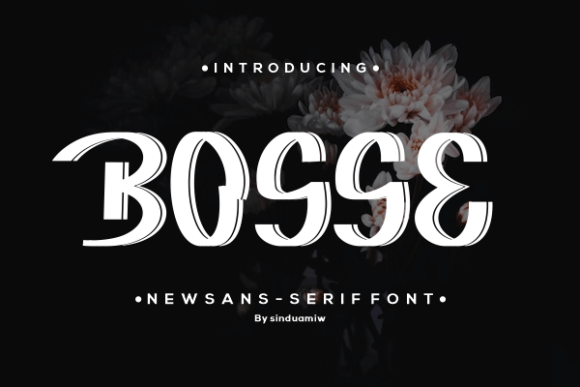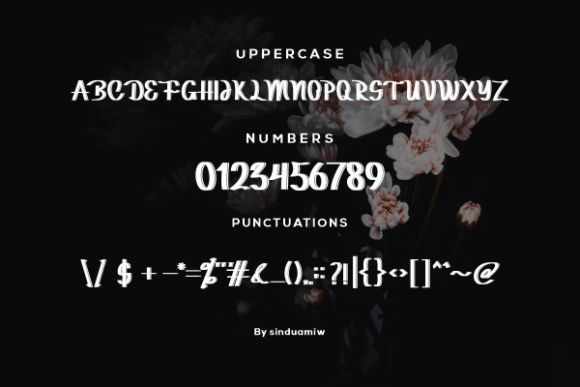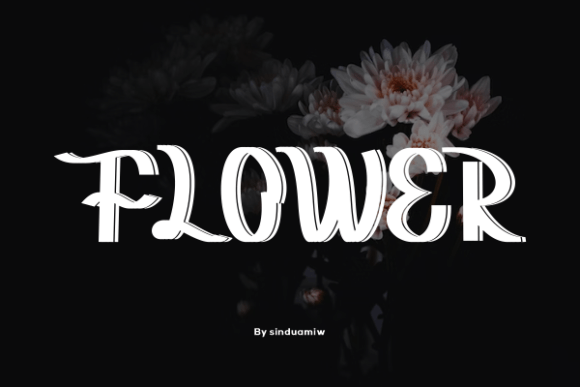
Bosse
Bosse: An Elegant and Beautifully-Curved Slab Serif Font
Bosse is an elegant and beautifully-curved slab serif font. Moreover, it embodies charm and authenticity, making it a perfect choice for products with exquisite vibes. This distinctive typeface combines graceful curves with refined character.
Key Features of Bosse
• Elegant Design: Offers sophisticated and refined letterforms.
• Beautiful Curves: Features graceful, flowing lines.
• Authentic Style: Brings genuine character to designs.
• Charming Appeal: Adds a touch of sophistication to projects.
Best Uses for Bosse
Thanks to its elegant characteristics, Bosse works especially well for:
When using Bosse in your designs, keep these tips in mind:
• Try it for headlines or short text to showcase its elegant curves.
• Use different sizes to highlight its beautiful details.
• Pair with simpler fonts for body text to create balance.
• Let its authentic charm enhance exquisite projects.
To sum up, Bosse is an excellent choice for designers seeking an elegant and beautifully-curved slab serif font. Its combination of charm and authenticity makes it perfect for projects requiring sophistication. Whether you’re creating luxury branding, designing high-end products, or developing premium content, Bosse offers the perfect blend of elegance and character.
Furthermore, Bosse’s distinctive design allows it to shine in contexts where refinement is key. For instance, from upscale advertising to premium branding, this font can elevate your projects with its exquisite style. Also, its elegant yet authentic appearance works particularly well in designs that aim to make a sophisticated impact.
In conclusion, Bosse truly captures the essence of elegant design in slab serif typography. Its versatility across different applications shows how well it can serve various creative needs. Therefore, for those wanting to add a touch of refined charm to their work, Bosse can enhance any design with its unique style. Ultimately, it’s perfect for designers aiming to make an elegant, authentic impact across sophisticated projects.